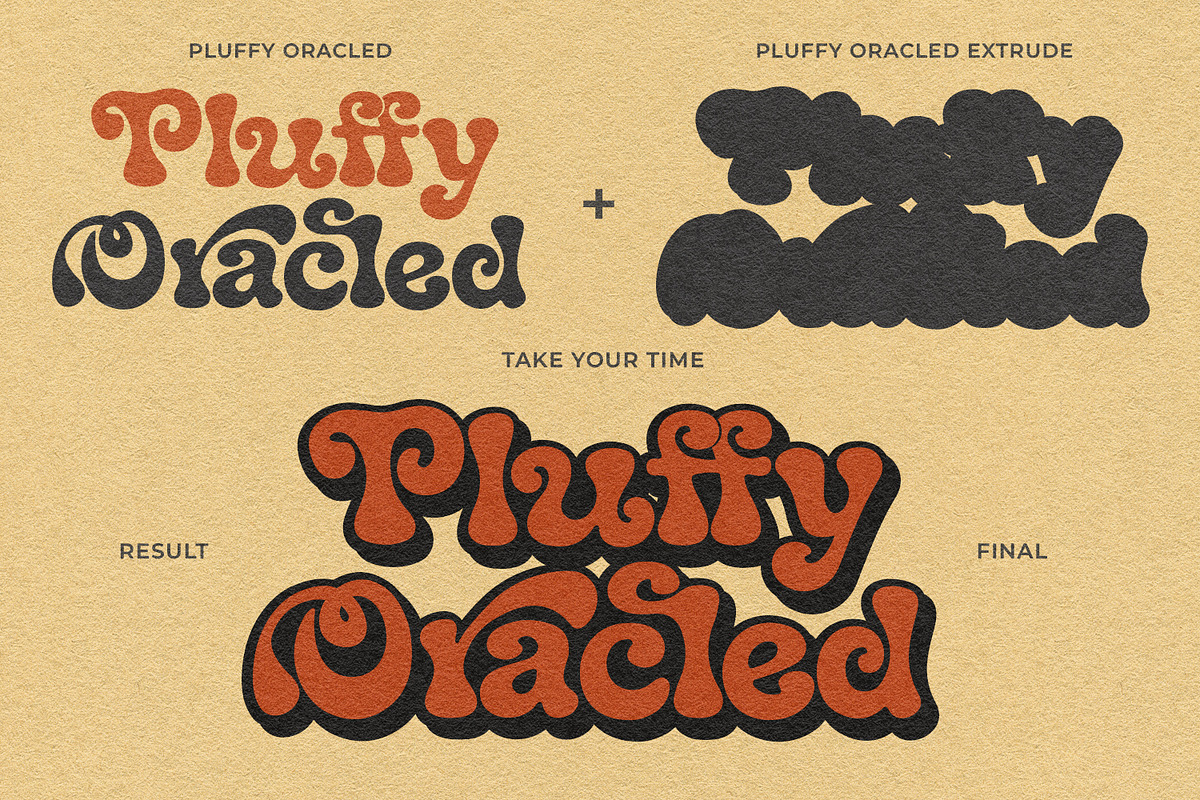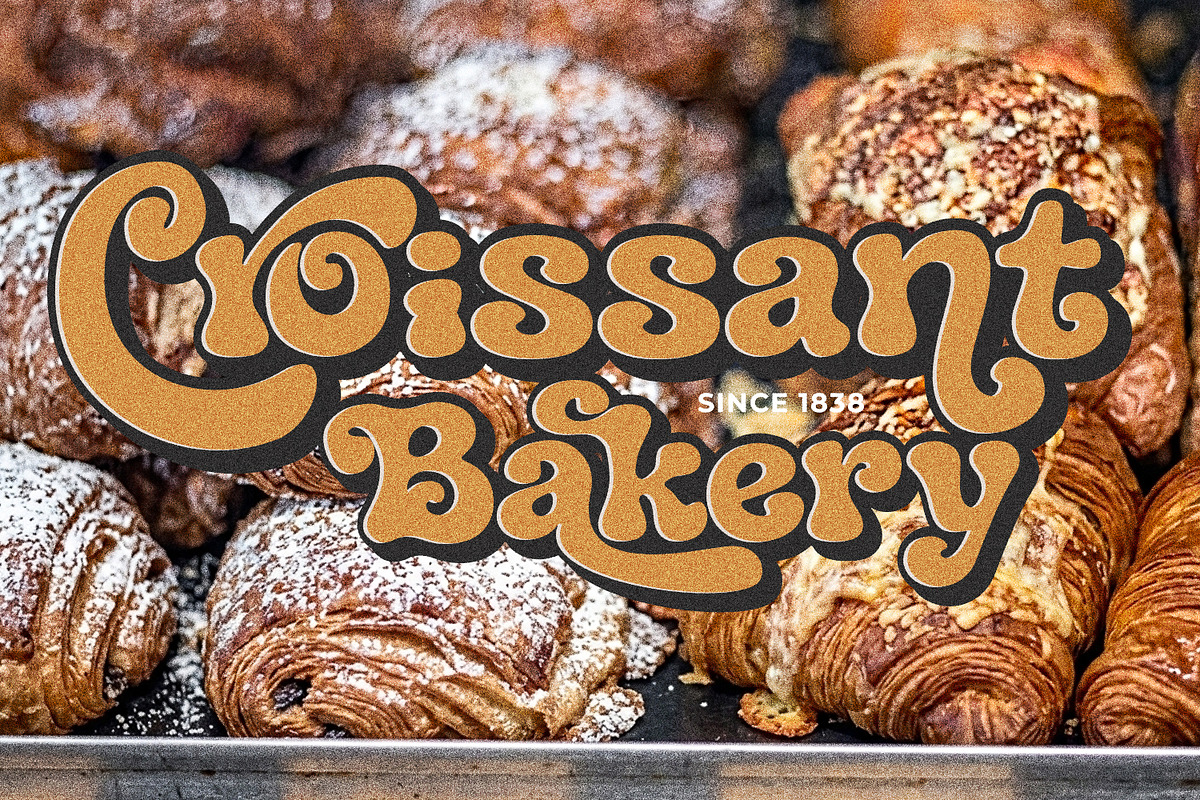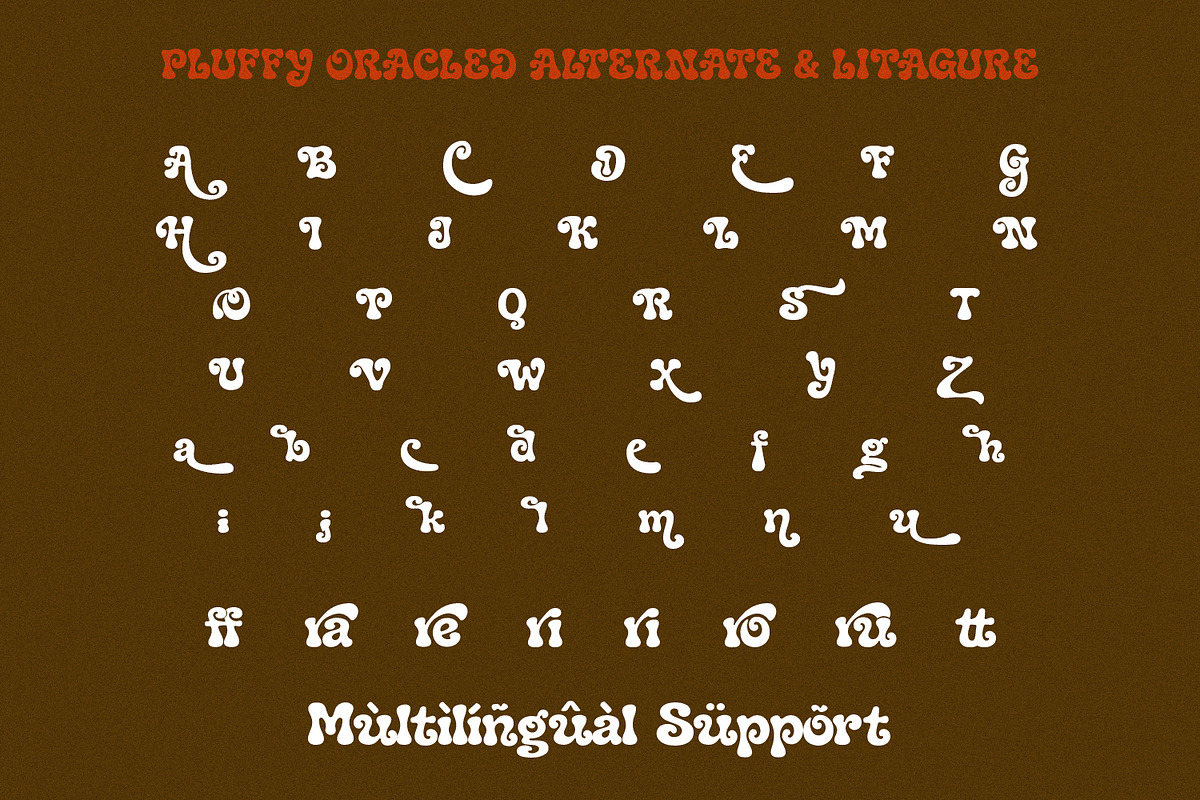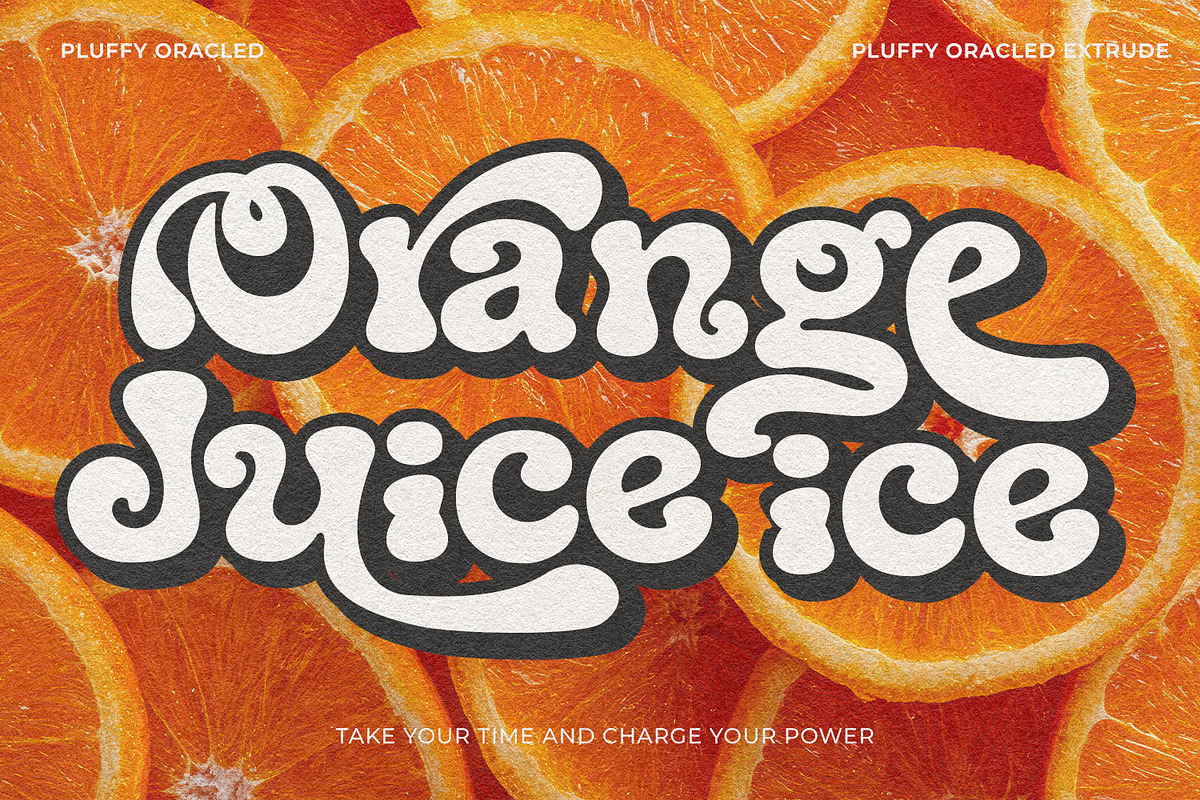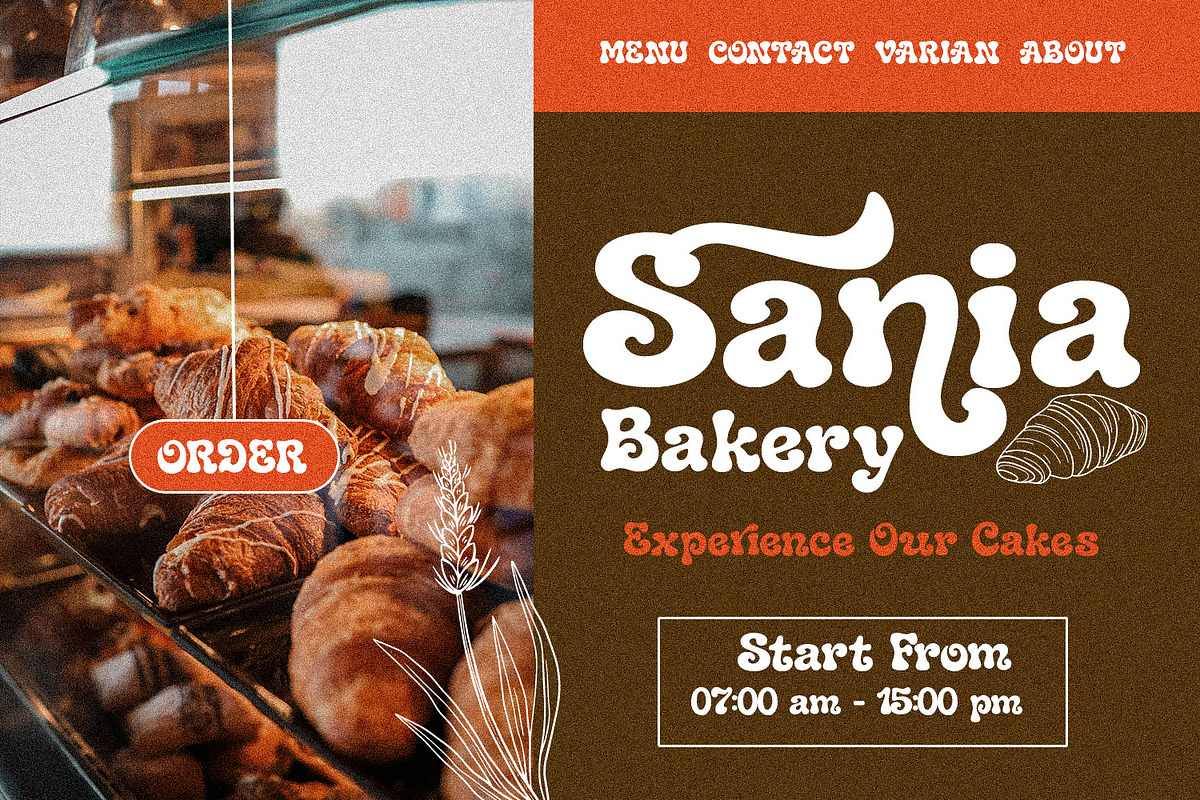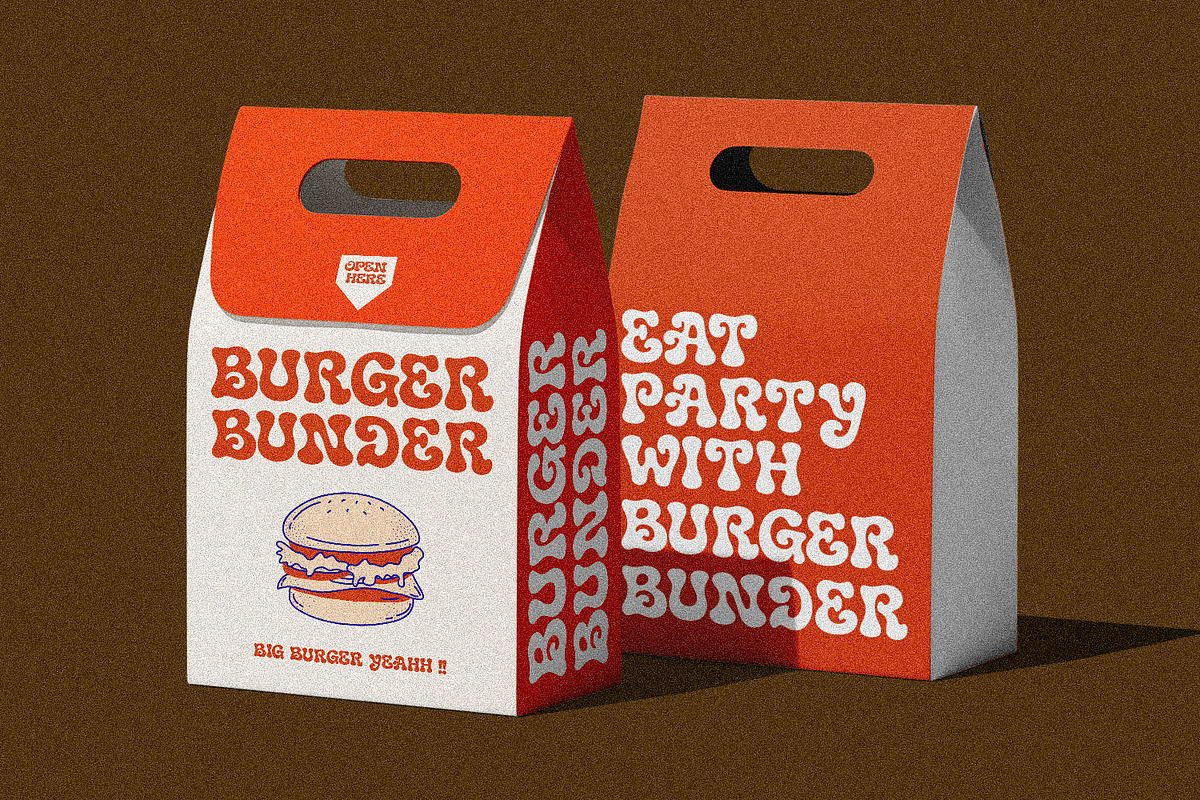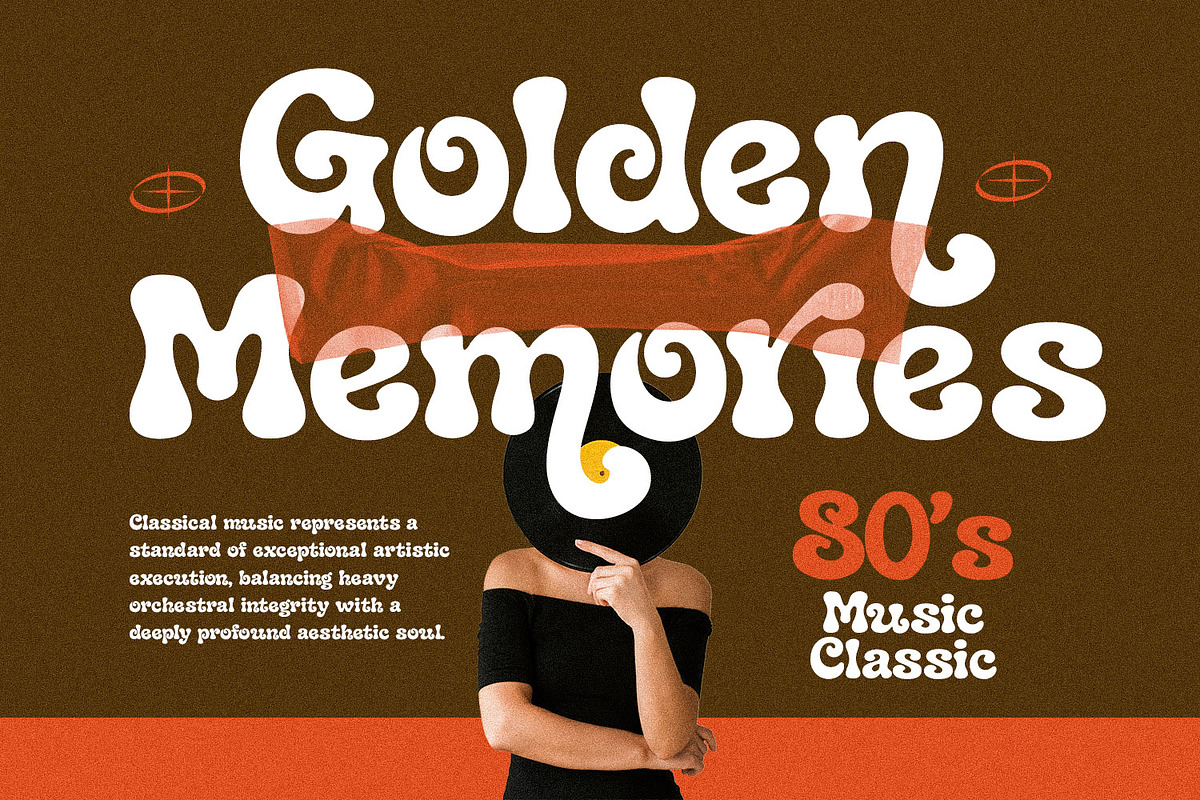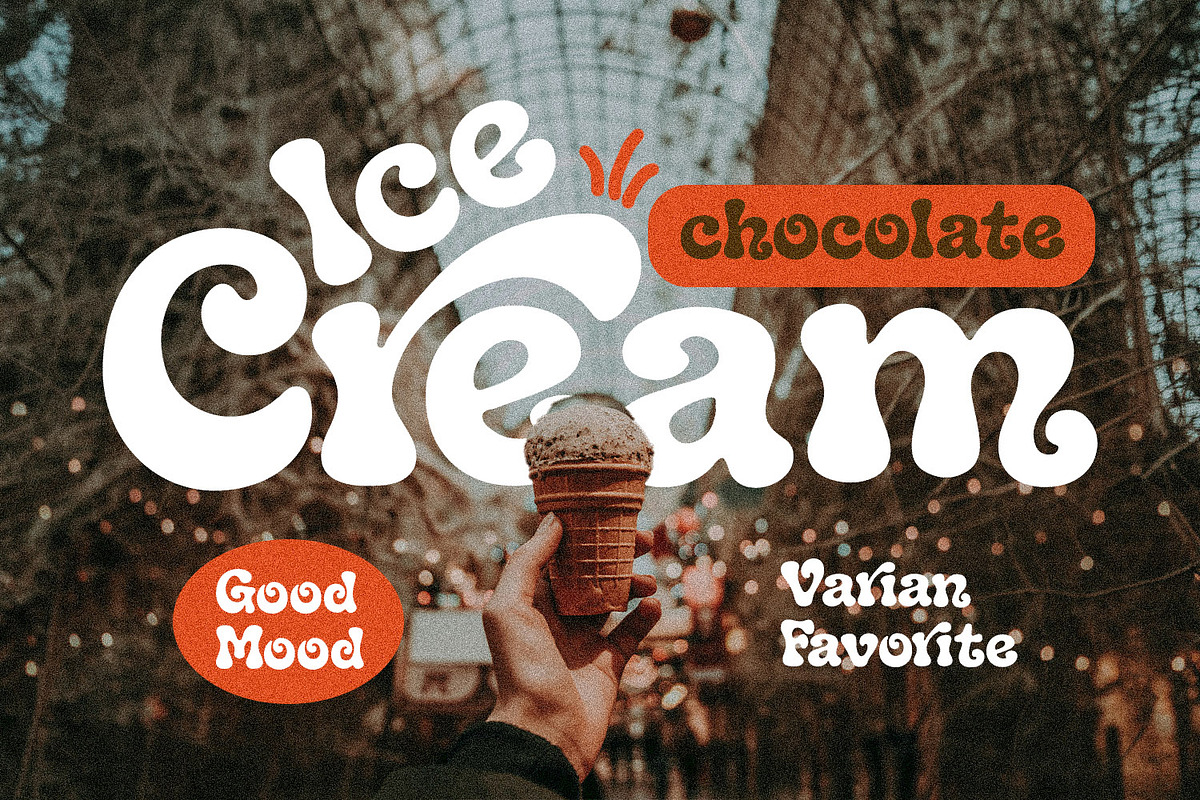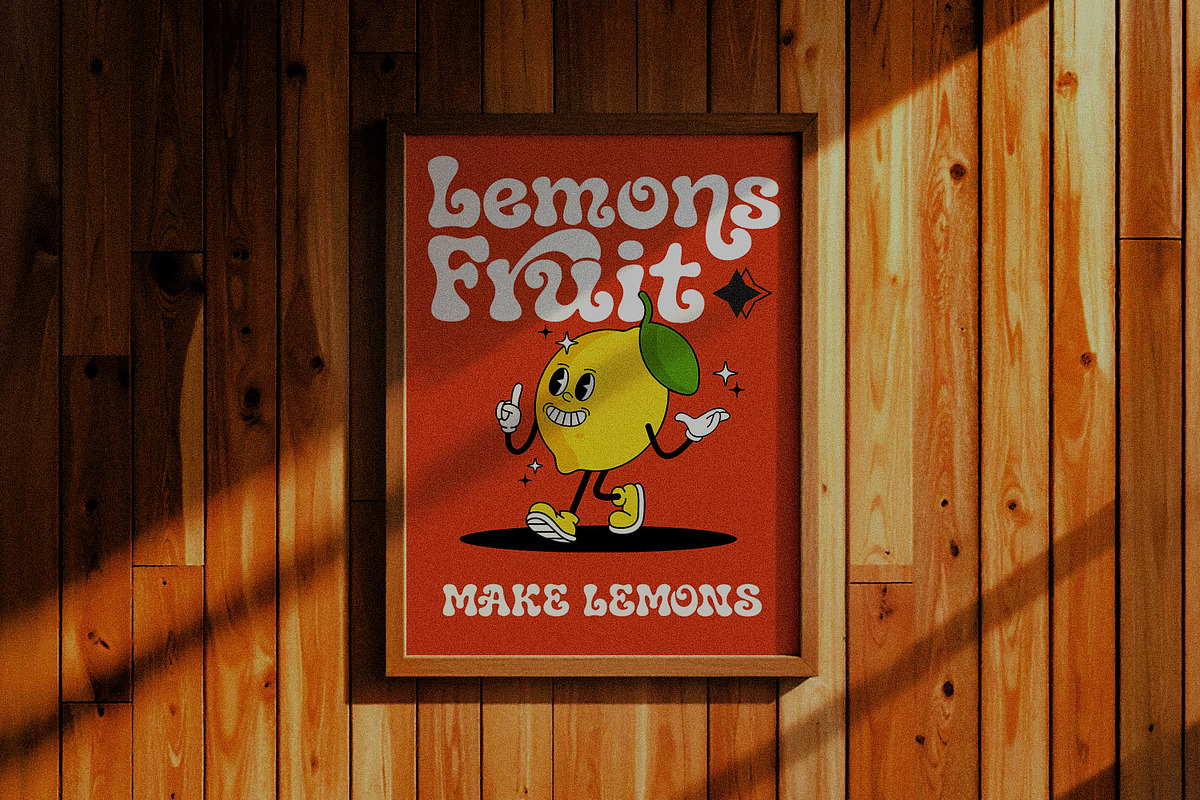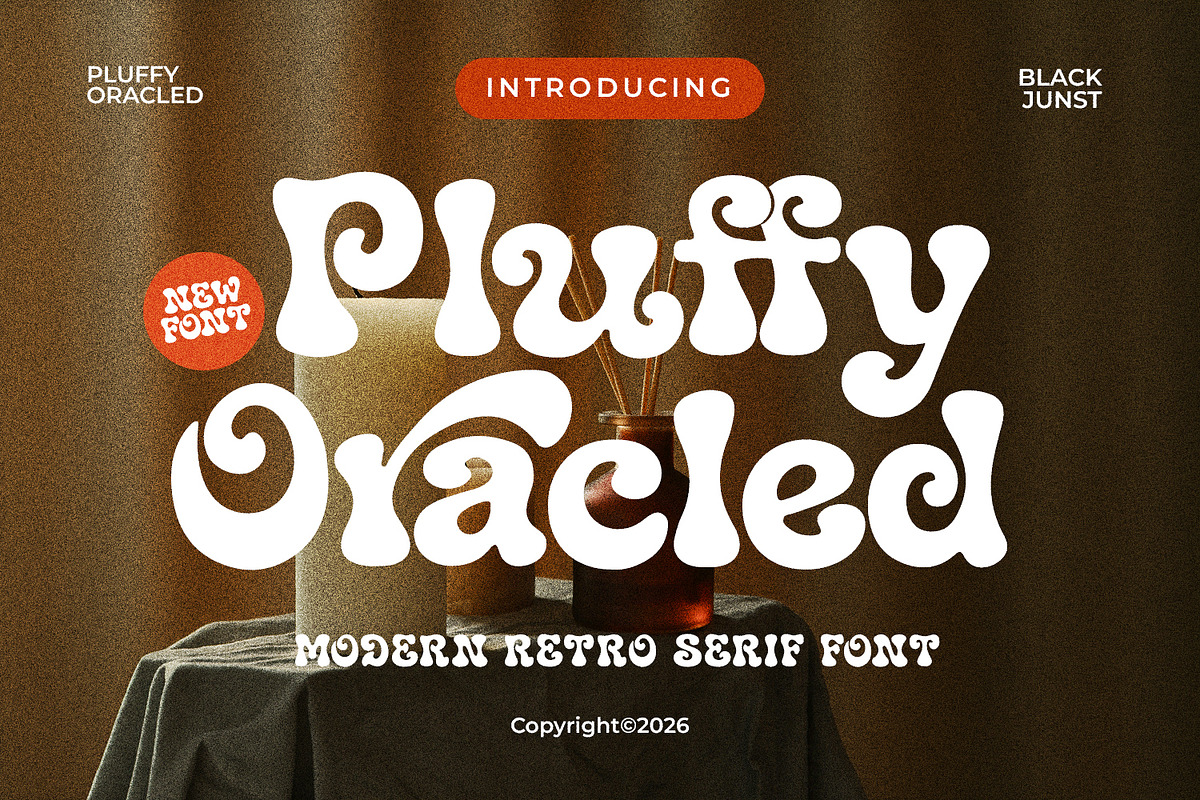
Pluffy Oracled – Groovy Retro Vibes
Pluffy Oracled is a bold and expressive retro serif font that blends the timeless charm of vintage typography with a fresh modern twist. Designed with smooth curves, chunky letterforms, and playful details, this typeface instantly brings a sense of fun, nostalgia, and personality to any creative project.
Inspired by the golden era of groovy design, Pluffy Oracled captures the warmth of classic retro aesthetics while remaining versatile for today's branding needs. Its unique swashes, soft edges, and eye-catching shapes make every word feel lively, memorable, and full of character.
Whether you're creating branding, packaging, posters, social media content, logos, merchandise, book covers, café branding, children's products, or creative editorial layouts, Pluffy Oracled delivers a perfect balance of retro, groovy, playful, and modern vibes.
Retro Branding
Groovy Posters
Playful Packaging
Vintage Logos
Kids Projects
Product Labels
Merchandising
Editorial Headlines
Creative Advertising
Bring a cheerful retro spirit into your designs with Pluffy Oracled, a font crafted to make your work stand out with bold personality, groovy energy, and playful charm.